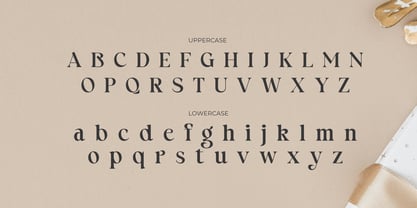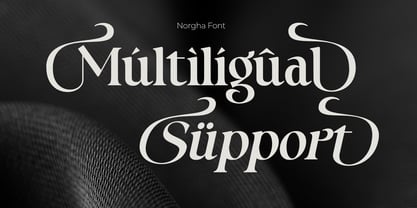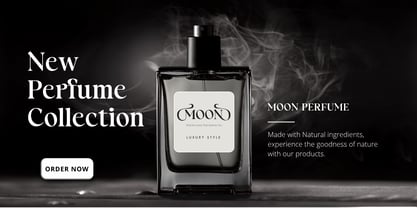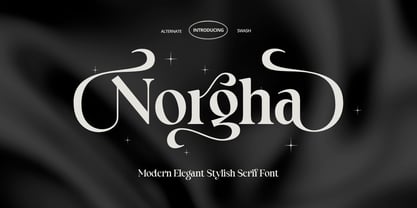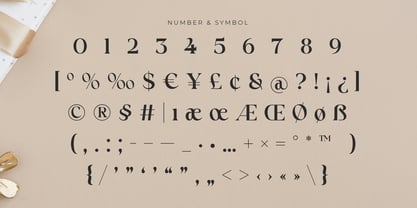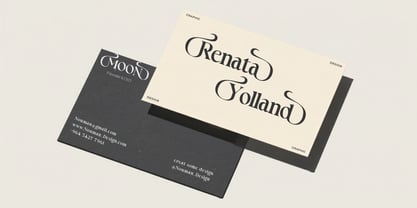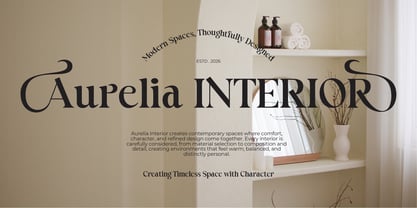
Norgha
Norgha is a Modern Elegant Stylish Serif Font that exudes elegant and Stylish, crafted to elevate any design project to a cinematic level. Its sophisticated characters are perfect for high-end branding, logos, and editorial designs, bringing a sense of refinement and class to your work.
The creation of Clarist was inspired by the blend of modern aesthetics with timeless elegance. Every curve and line is meticulously designed to reflect a luxurious feel, making it an ideal choice for designers looking to create a powerful and memorable visual identity. Whether used in titles, headlines, or body text, Clarist stands out with its exquisite details.
Beyond its visual appeal, Clarist offers functionality with its unique ligatures, punctuation, numbers, symbols, and multilingual support. This font ensures versatility, making it a valuable addition to any designer's toolkit for both print and digital media.